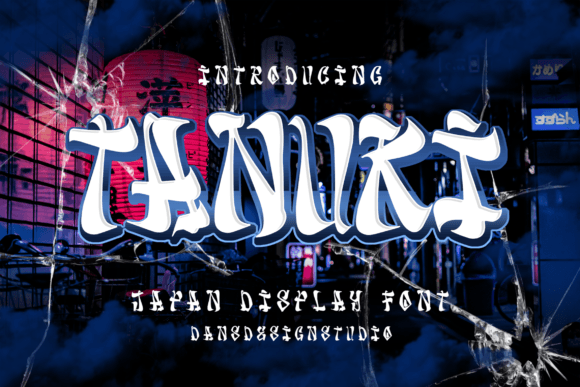
Behold, Tanuki Font, a Japanese-inspired blackletter font that spells enchantment and distinction. Its every stroke exudes meticulous detail, like a skilled artisan's handiwork. Whether your vision is of captivating retro-urban designs, a striking tattoo parlor logo, a distinctive vintage label, or a world of your own creation, Tanuki Font is a brush poised to paint your dreams.
With Tanuki Font's guidance, your designs will tread paths unexplored, where boldness and elegance harmoniously entwine. Brand your tattoo business with a logo that whispers stories of inked artistry, or craft logos that command attention like a siren's song. Let Tanuki Font forge your path into the realm of unforgettable impressions.
Dive into a world of retro-urban creations, where Tanuki Font breathes life into your vision. Its strokes, reminiscent of a bygone era, will gracefully adorn posters, T-shirts, and packaging, adding a touch of nostalgia to the contemporary. Let Tanuki Font evoke the allure of vintage designs, as it transports your audience to an era of timeless charm.
Open the doors to your imagination and let Tanuki Font guide you. Its versatility spans far and wide, enabling you to mold it into signage, posters, and even body art. It's a font that adapts like a chameleon, effortlessly blending into any backdrop you desire. Unleash your creativity and let Tanuki Font weave its magic.